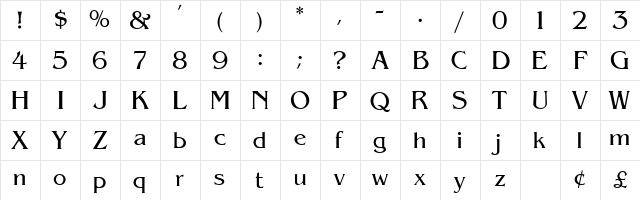
Azote SSi Regular
Design Context for Azote SSi Typeface
Azote SSi takes a measured approach to typography — its balanced proportions and neutral character make it a reliable workhorse for both digital and print work.